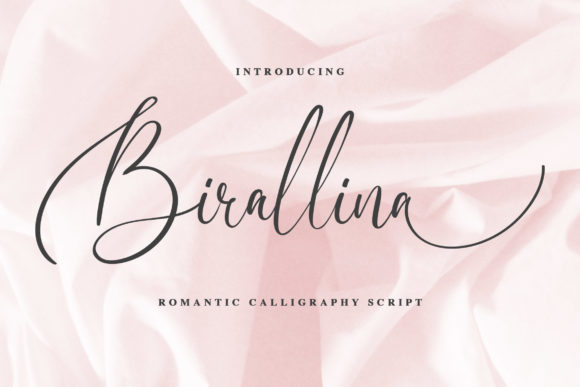
Introducing Birallina: The Stunning Handwritten Font
Birallina is a game-changer. This handwritten font with a bold twist has the power to turn any design project into a true standout. Its unique blend of elegance and playfulness makes it perfect for designers, crafters, and creative hobbyists looking to add a personal touch to their work.
An Honest Review of Birallina
- ✨ Unique and eye-catching design
- ✅ Highly legible, even in smaller sizes
- 💫 Supports OpenType features, glyphs, and stylistic alternates
- 🎨 Versatile and suitable for a wide range of design projects
While Birallina is an exceptional font, there are a few things to keep in mind:
- 🤔 Limited availability of Cyrillic or non-English characters
The Story Behind Birallina
Birallina was designed with the intention of creating a unique, yet legible handwritten font. The designer aimed to craft a font that would be both elegant and playful, suitable for a wide range of design projects. Inspired by traditional calligraphy and modern digital design, Birallina was born.
Q: What type of projects is Birallina best suited for?
A: Birallina is versatile and can be used for various design projects, such as branding, packaging, posters, and more.
Q: Does Birallina support non-English characters?
A: Birallina’s character set is primarily focused on English and Western European languages, but it may not support Cyrillic or non-English characters.